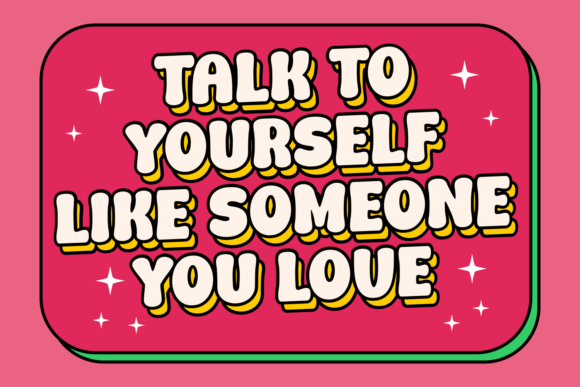
The Dream Font: Reviving Retro Vibes in Your Designs
In the world of typography, fonts play a crucial role in setting the tone and aesthetic of a design. With the vast array of fonts available, it can be challenging to find one that stands out and captures the essence of a specific era or style. This is where The Dream Font comes in – a funky and nostalgic typeface that brings back the cool and groovy vibes of retro times.
The Dream Font: A Blast from the Past
The Dream Font is a carefully crafted typeface designed to evoke the spirit of the past. Its unique and playful style is reminiscent of the retro era, making it perfect for designers looking to add a touch of nostalgia to their projects. Whether you’re working on a vintage-themed poster, a retro-style logo, or a design that requires a dash of playfulness, The Dream Font is the ideal choice.
Key Features of The Dream Font
The Dream Font boasts several key features that make it an excellent addition to your design toolkit. Some of its notable features include:
- Retro Style: The font’s retro style is perfect for creating designs that require a vintage or nostalgic feel. Its funky and playful aesthetic is sure to transport your audience back in time.
- Vintage Charm: The Dream Font adds a touch of vintage charm to your designs, making them stand out from the crowd. Its unique style is sure to capture the attention of your audience and leave a lasting impression.
Uses of The Dream Font
The Dream Font is a versatile typeface that can be used in a variety of design projects. Some of the most popular uses of the font include:
- Posters and Flyers: The font’s retro style makes it perfect for creating eye-catching posters and flyers that require a vintage or nostalgic feel.
- Logo Design: The Dream Font can be used to create unique and memorable logos that capture the essence of a brand or business.
- Social Media Graphics: The font’s playful and funky style makes it ideal for creating social media graphics that require a touch of personality and whimsy.
- Packaging Design: The Dream Font can be used to add a touch of vintage charm to packaging design, making products stand out on store shelves.
Tips for Using The Dream Font
To get the most out of The Dream Font, here are a few tips to keep in mind:
- Pair it with Other Fonts: The Dream Font can be paired with other fonts to create a unique and visually appealing design. Experiment with different font combinations to find the perfect match.
- Experiment with Colors: The font’s retro style lends itself well to bold and bright colors. Experiment with different color schemes to find the perfect fit for your design.
- Use it Sparingly: While The Dream Font is a beautiful and eye-catching typeface, it can be overwhelming if used excessively. Use it sparingly to add a touch of personality to your design.
The Benefits of Using The Dream Font
The Dream Font offers several benefits to designers, including:
- Unique Style: The font’s retro style sets it apart from other typefaces, making it a great choice for designers looking to add a touch of personality to their designs.
- Vintage Charm: The Dream Font adds a touch of vintage charm to designs, making them stand out from the crowd.
The Dream Font is a unique and eye-catching typeface that brings back the cool and groovy vibes of retro times. Its funky style and PUA encoding make it perfect for designers looking to add a touch of nostalgia and personality to their designs. With its versatility and ease of use, The Dream Font is an excellent addition to any design toolkit.